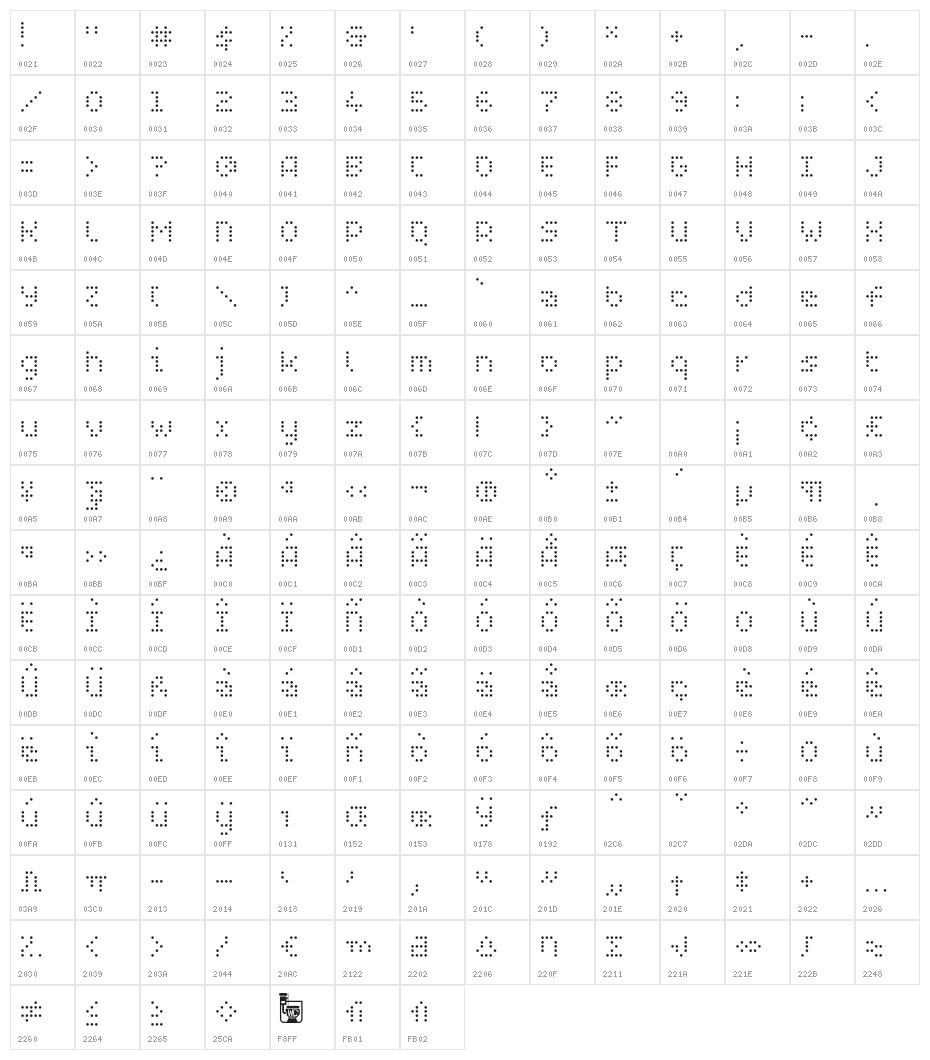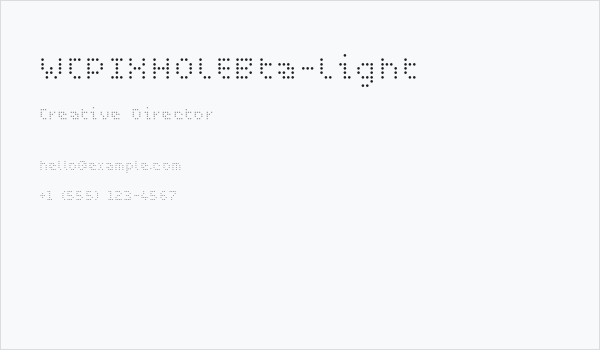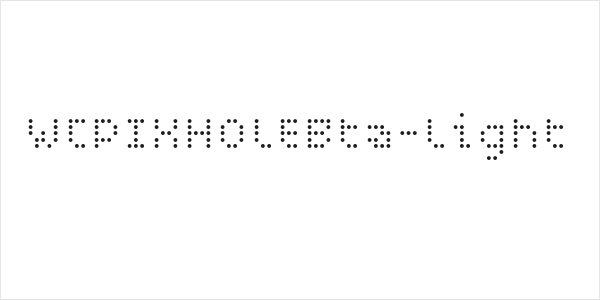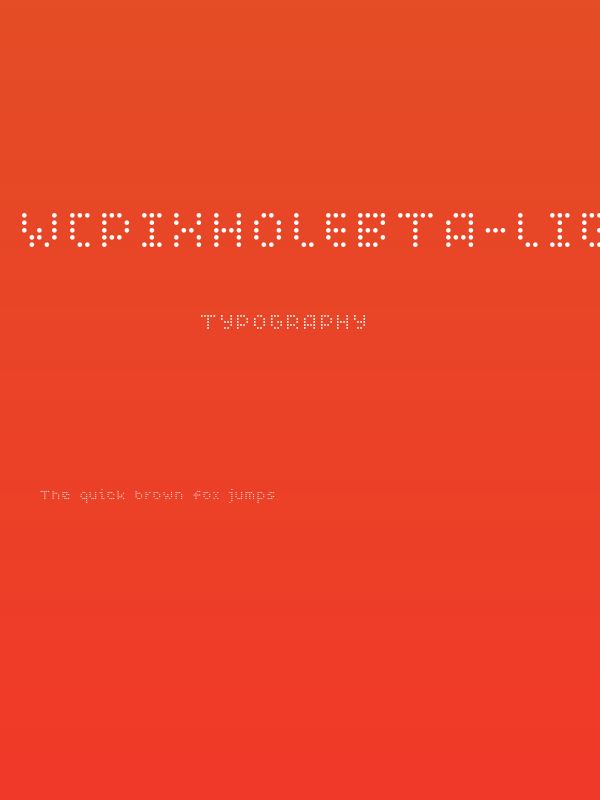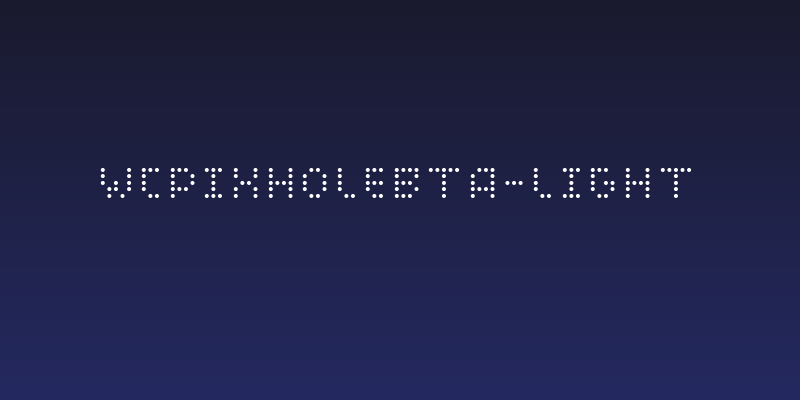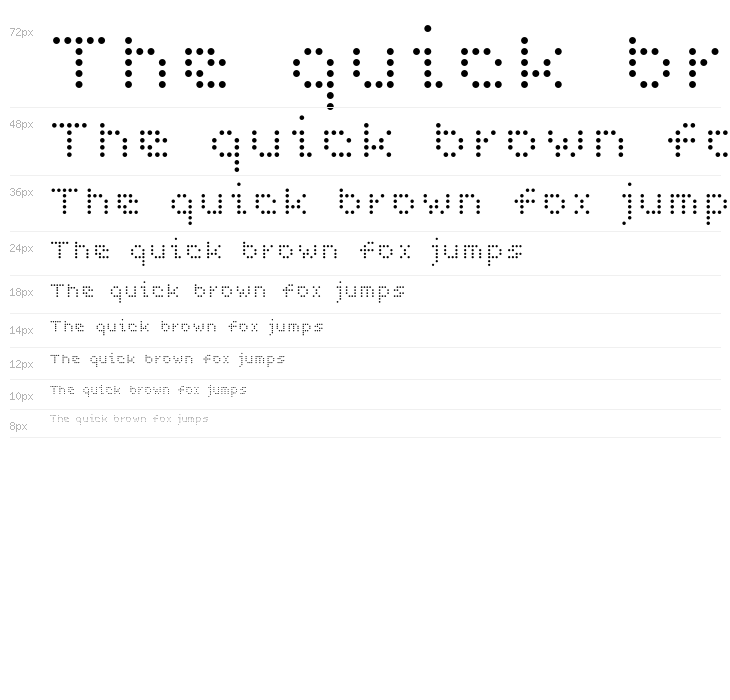
WCPIXHOLEBta-Light Font
WCPIXHOLEBta-Light Description
This font features a unique dot matrix style, where each character is composed of a series of evenly spaced dots. The design is reminiscent of old digital displays or LED screens, providing a retro and technological feel. The characters are clearly defined despite the unconventional structure, ensuring readability. This font is particularly suitable for creative projects that aim to evoke a sense of nostalgia or a futuristic aesthetic. The uniformity of the dots across all characters gives it a cohesive appearance, making it ideal for both artistic and functional applications.
Overall StyleRetro, Futuristic
Use CaseLogos, Headlines, Digital Displays
Proposed ProjectsIdeal for digital art, retro-themed designs, tech-related branding, and creative posters.